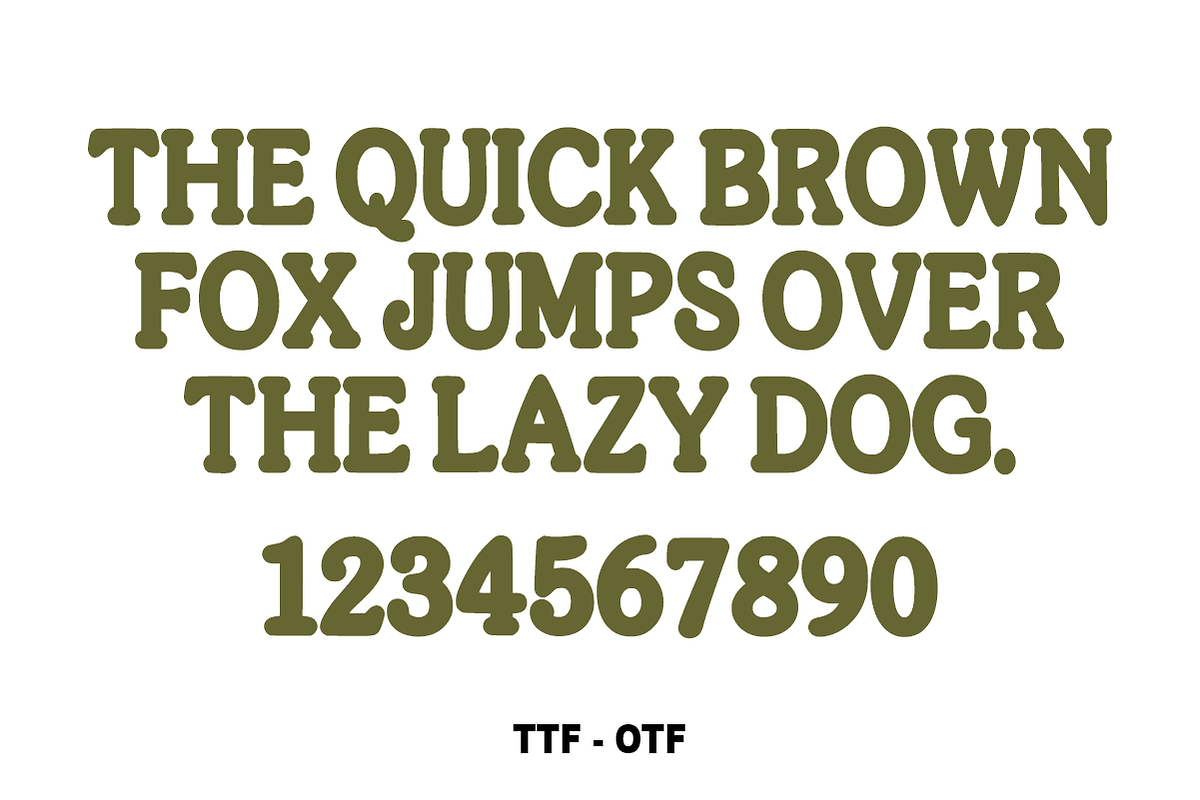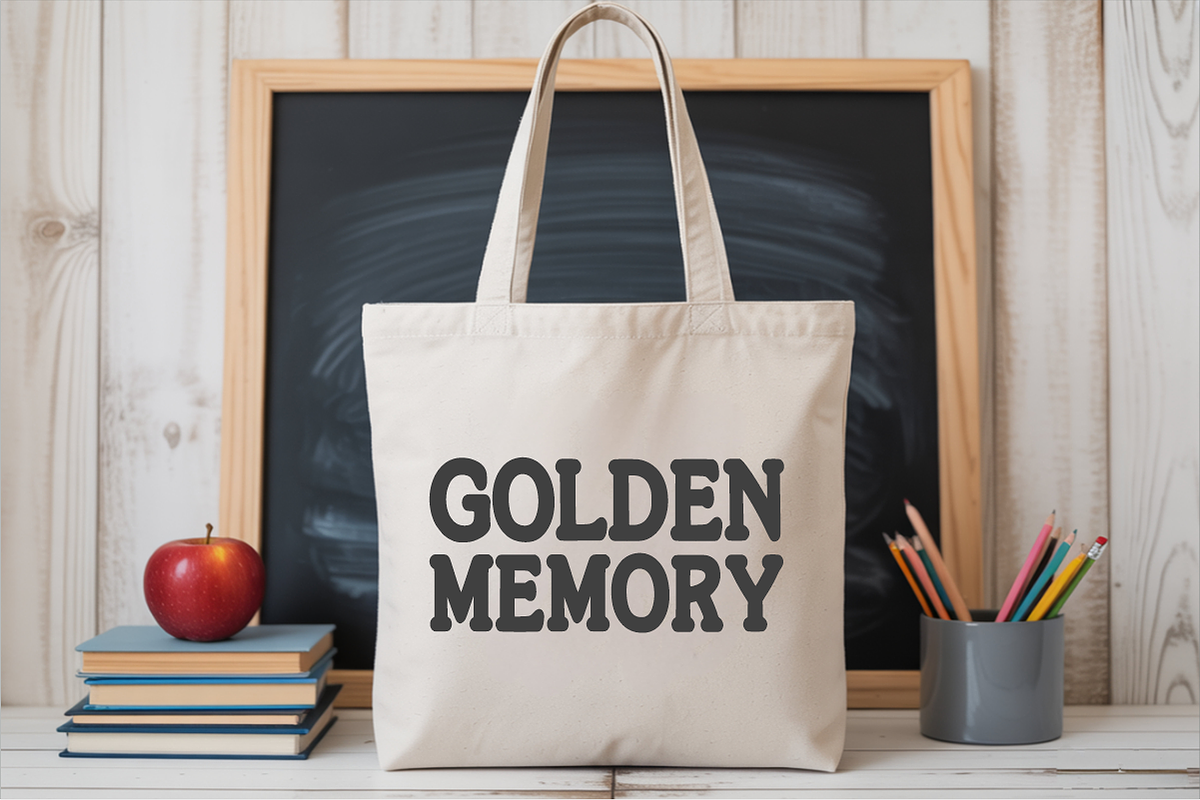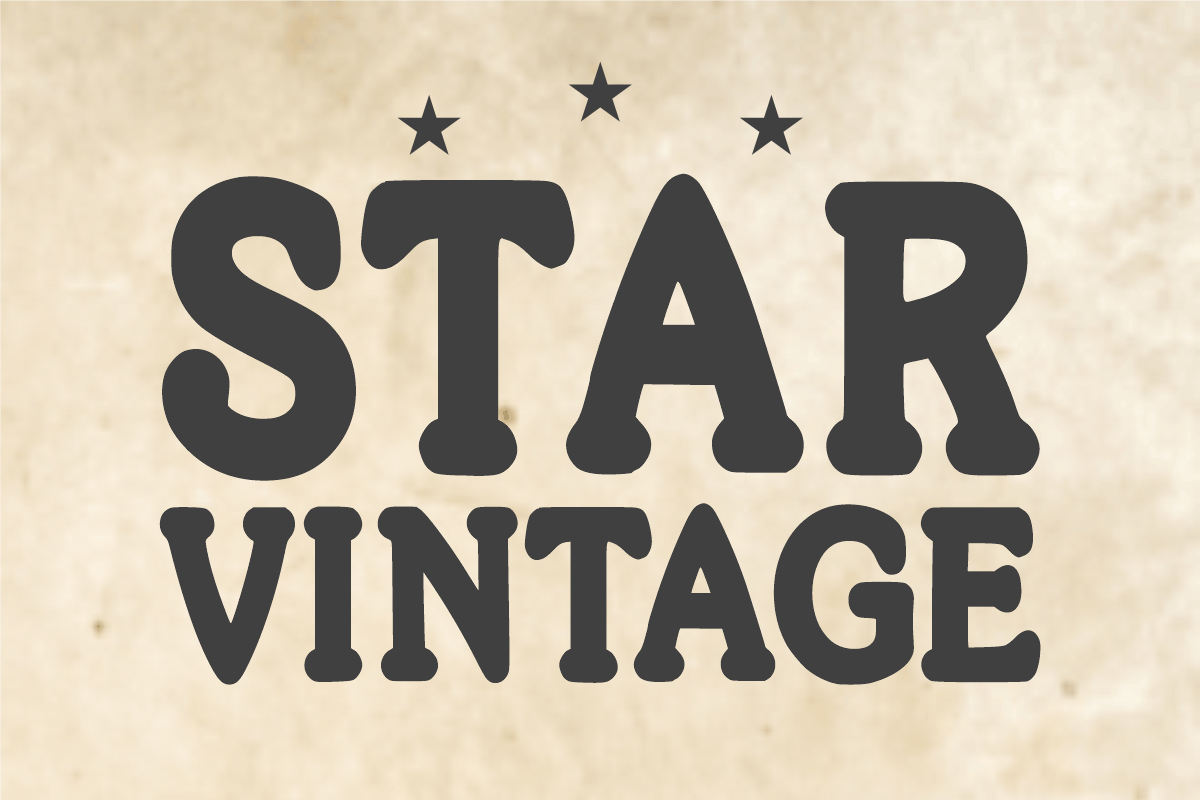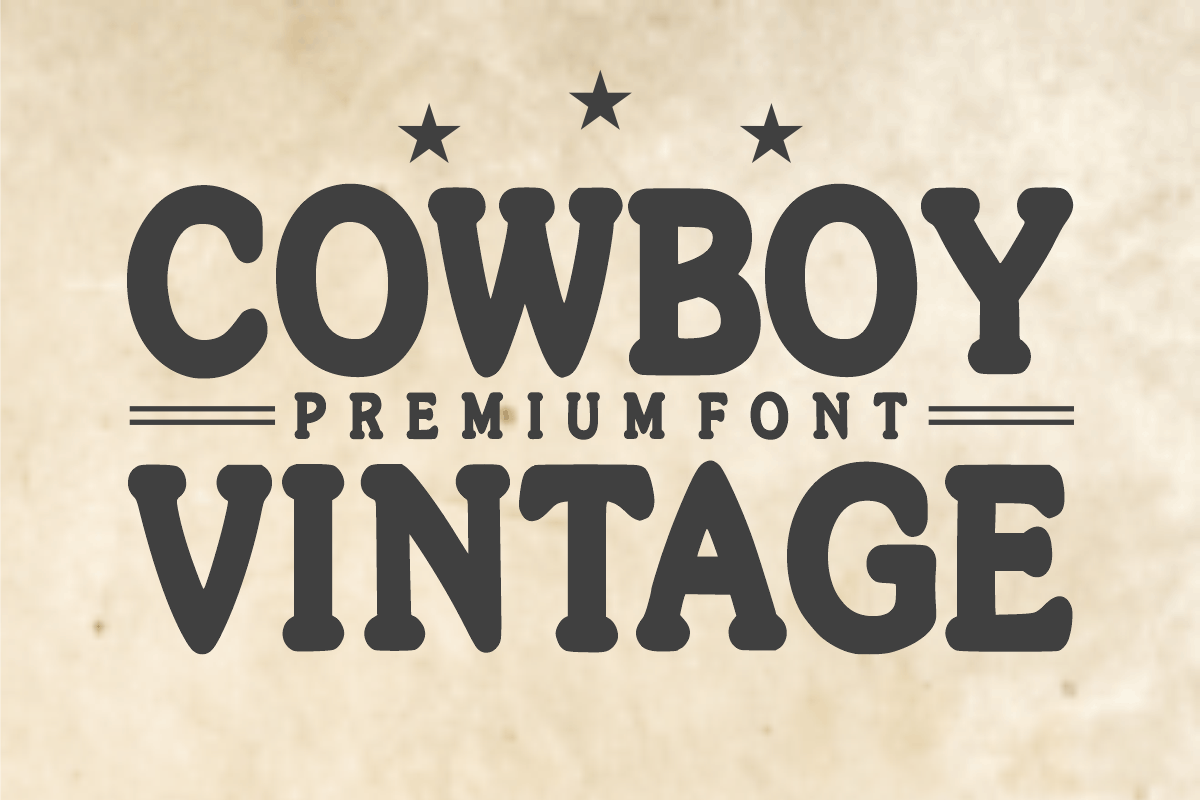
Cowboy Vintage –Classic Western Font
Cowboy Vintage – Classic Western Display Font 🤠🌵
Capture the spirit of the Wild West with a modern, premium twist!
Cowboy Vintage is a bold, rounded slab serif display font designed to bring an authentic vintage western vibe to your creative projects. With its clean lines and sturdy letterforms, this font perfectly balances ruggedness with readability. Whether you are designing for a rustic brand, creating high-energy event posters, or developing unique merchandise, Cowboy Vintage provides the professional, high-quality look needed to make your designs stand out.
🌟 Why Cowboy Vintage is the Perfect Choice:
Authentic Western Style: Features the iconic rounded slab serif look that instantly communicates a vintage, rustic, or pioneer theme.
Bold Visibility: The thick, commanding structure makes it an excellent choice for headlines, titles, and logos that need to be seen from a distance.
Versatile Application: While perfect for western themes, its clean design also works beautifully for modern industrial, outdoor, and craft-oriented branding.
Character Set: Bold All-Caps Uppercase Letters (A-Z).
Numbers & Symbols: Complete set of numerals (0-9) and essential simple punctuation.